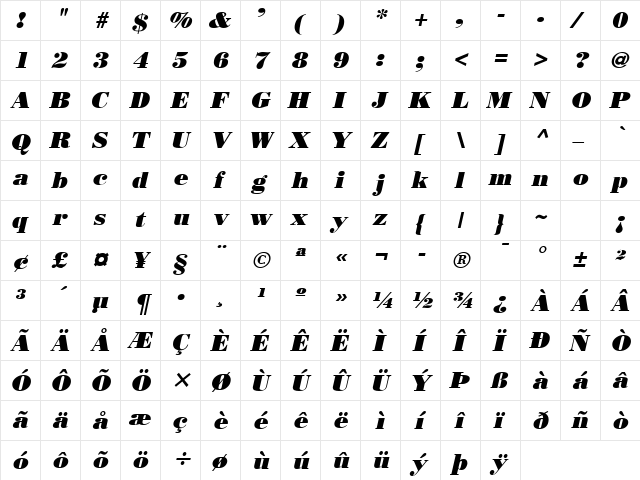
Rotterdam Italic
Design Context for Rotterdam Typeface
Rotterdam offers clean, dependable letterforms without strong stylistic allegiance, making it a practical choice for designers who need flexibility. The slanted form adds forward momentum and visual energy.
Pro Tip: Try Rotterdam for annotation and caption copy alongside an upright companion — the contrast in angle creates a dynamic but ordered typographic system.